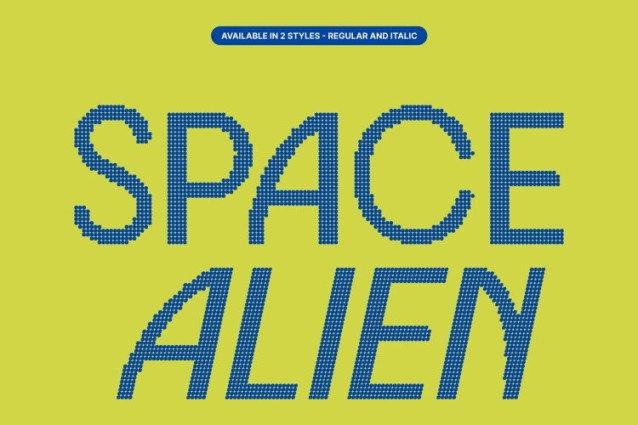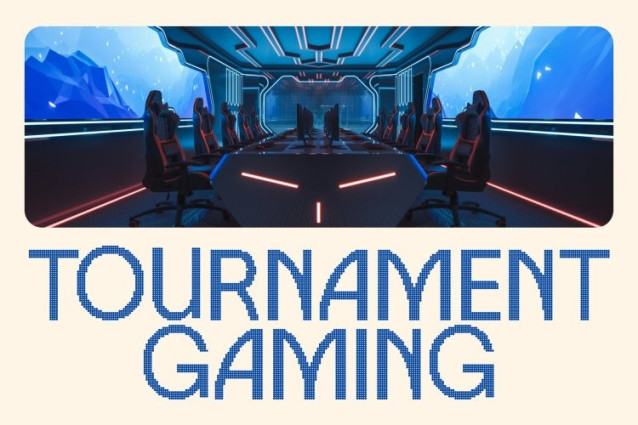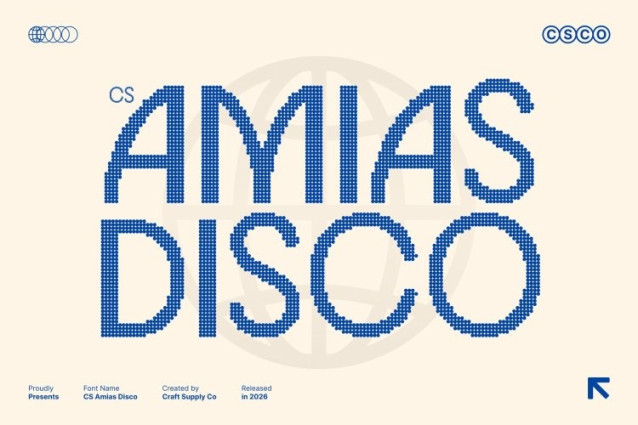
CS Amias Disco Font
CS Amias Disco Font This is a modern sans serif font that blends precise geometric structure with minimalist design and vibrant disco-inspired energy. Its clean lines and well-proportioned letterforms create a fresh, contemporary look, while the festive disco influence brings a glamorous, high-energy presence like typography illuminated by flashing lights on the dance floor.
Minimalist Design with Festive Rhythm
While maintaining a sleek and uncluttered appearance, this font introduces subtle geometric dynamics that create movement and visual rhythm. This balance allows the font to feel calm and controlled at its core, yet energetic and celebratory in expression perfect for designs that need both clarity and excitement.
Balanced Structure with Dynamic Expression
Consistent stroke weight, balanced spacing, and precise proportions ensure excellent readability across various design contexts. The geometric foundation provides structure and professionalism, while the disco-inspired styling adds bold personality, turning simple layouts into lively, eye-catching compositions.
Perfect for Party Branding, Modern Campaigns, and Energetic Visuals
This font is ideal for event branding, festival posters, modern logos, promotional materials, social media graphics, and contemporary editorial layouts. Its clean geometry combined with glamorous party energy makes it perfect for startups, creative studios, lifestyle brands, and visuals that aim to capture the excitement of music, movement, and celebration.